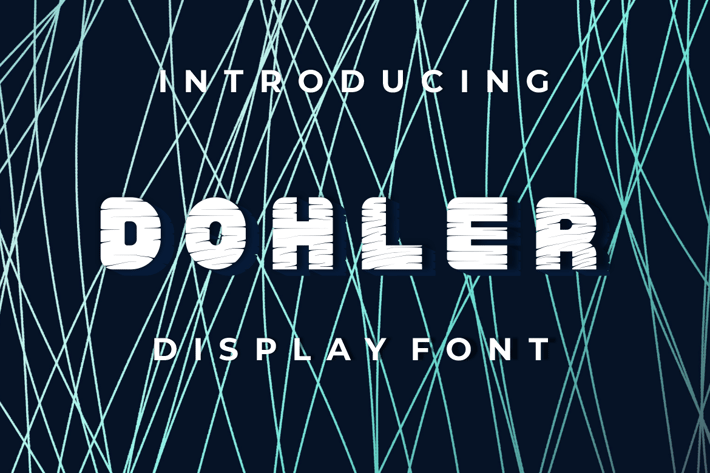
DOHLER Font
Introducing our new product DOHLER Font - Modern Font
DOHLER Font - Modern Font is a bold and authentic display font. The font is suitable for any branding project like logo, t-shirt printing, esport, and many more. outstanding in a wide range of contexts.